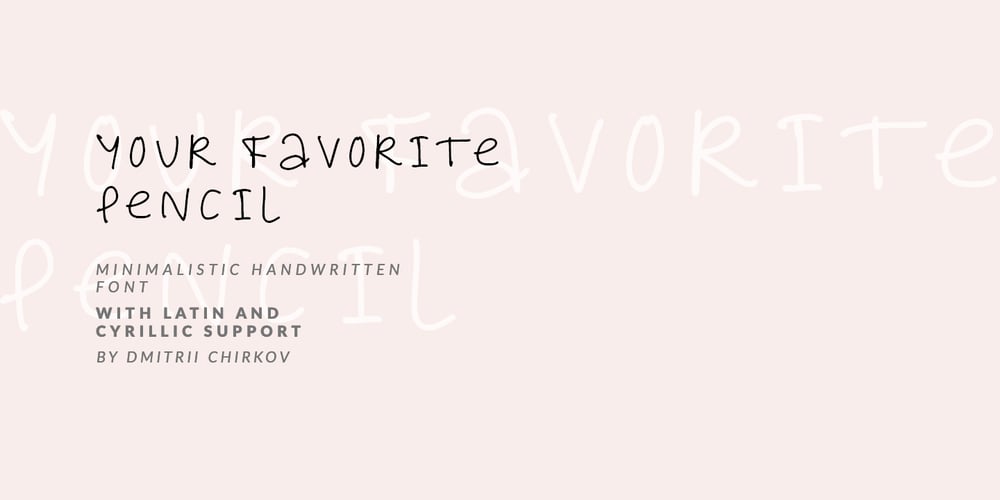
Your Favorite Pencil
Your Favorite Pencil font
Your Favorite Pencil Font Family was designed by Dmitrii Chirkov and published by Supfonts. Your Favorite Pencil contains 1 styles and family package options. Your Favorite Pencil Latin + CyrillicYour Favorite Pencil is a cute handwritten font with Cyrillic support. It is perfect for branding, wedding invitations, menu design, YouTube covers and many moreFont includes a full set of gorgeous uppercase and lowercase letters, numbers, a large selection of punctuation marks & Cyrillic supportТвой Любимый Карандаш – это милый рукописный шрифт с поддержкой кириллицы. Он идеально подходит для брендинга, свадебных приглашений, дизайна меню, обложек YouTube и многого другогоШрифт включает в себя полный набор великолепных прописных и строчных букв, цифр, большой выбор знаков препинания и поддерживает кириллицуTest it out below to see how it could look for your next project!Includes: Regular Script Latin languages support Cyrillic languages support Uppercase and lowercase Numbers and punctuation Check out my blog: https://www.instagram.com/superdizigner https://pinterest.com/dmitriychirkov7